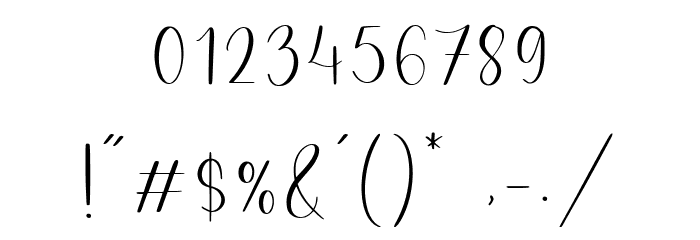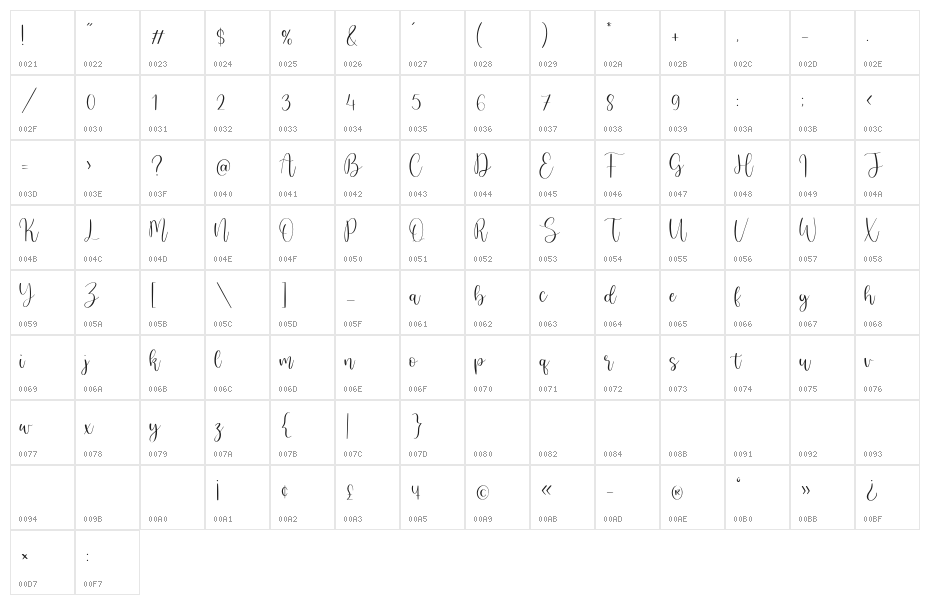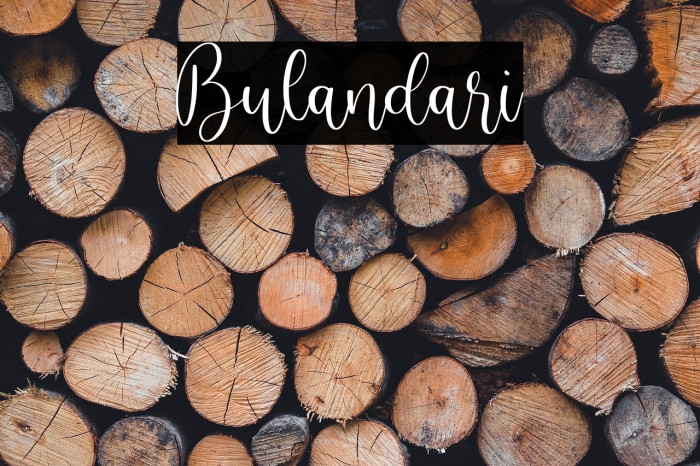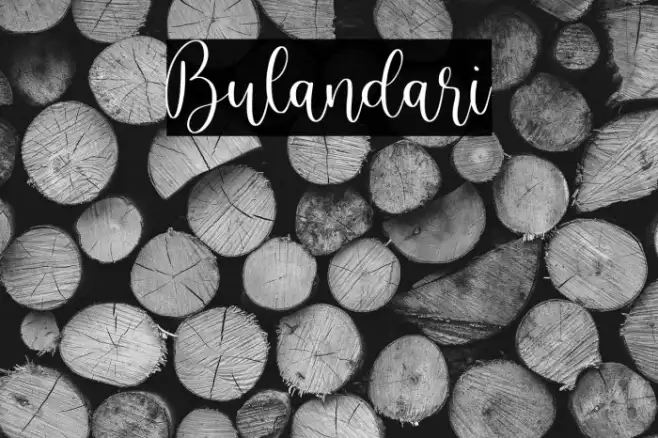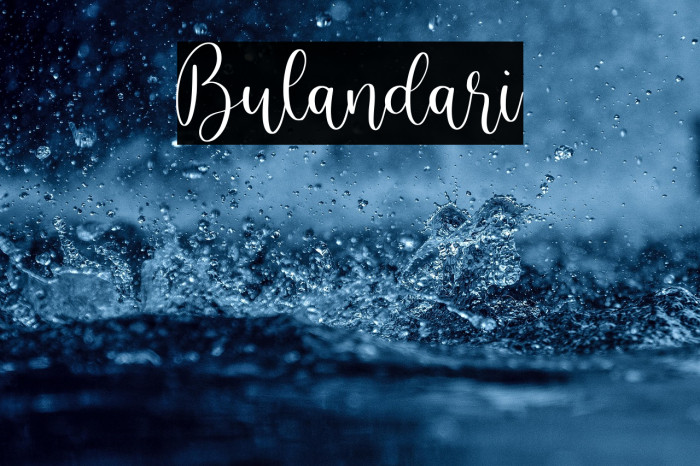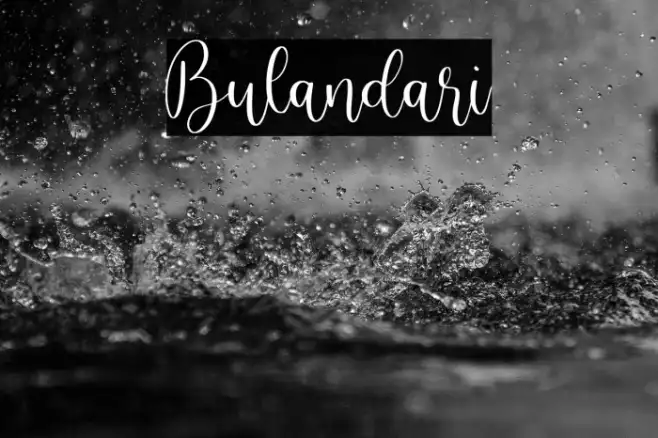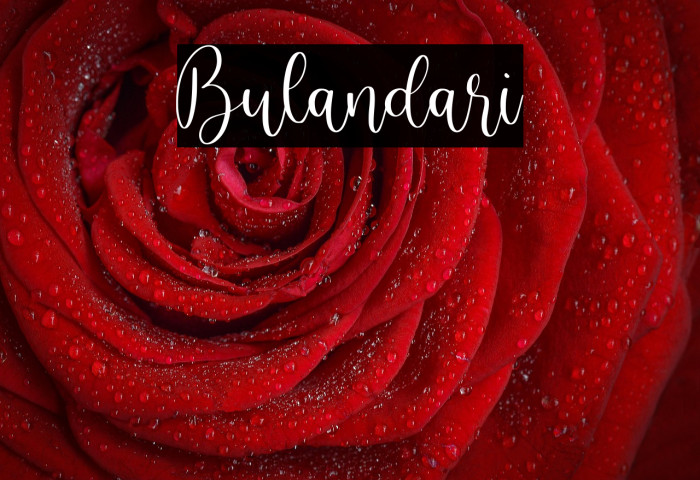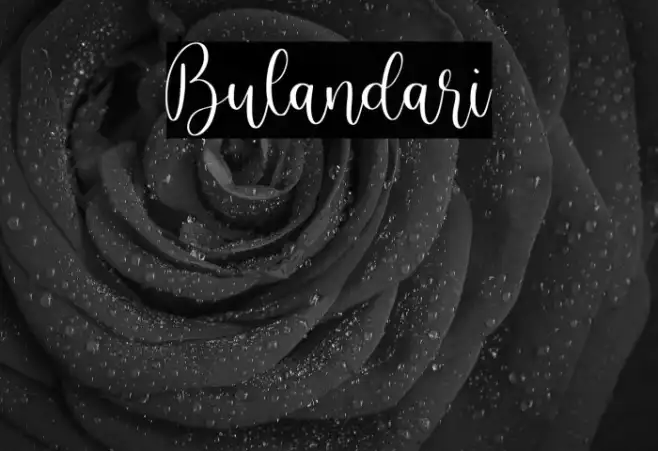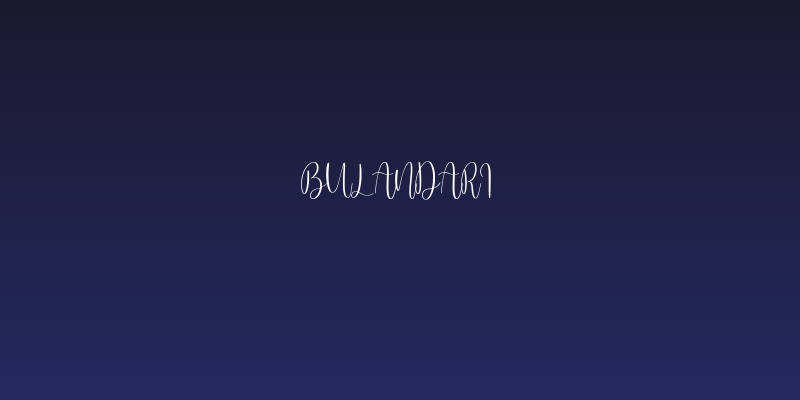
Bulandari Font
Bulandari Description
This font features an elegant, flowing script style that mimics the fluidity of handwriting. The characters are connected with smooth, sweeping curves, giving it a sophisticated and artistic appearance. The uppercase letters are tall and graceful, while the lowercase letters maintain a consistent flow, enhancing readability. The numerals and special characters are designed to complement the overall aesthetic, making it suitable for a variety of creative applications. The font's delicate strokes and subtle variations in thickness add a touch of refinement, making it ideal for projects that require a personal and stylish touch.